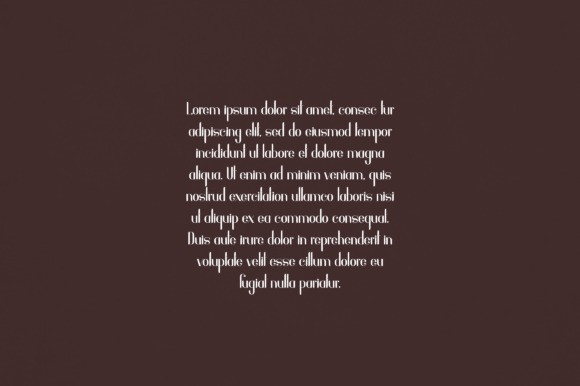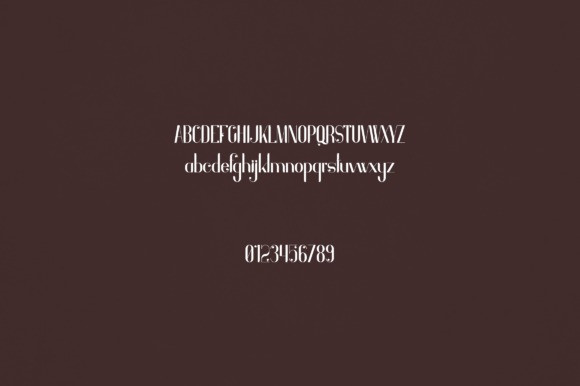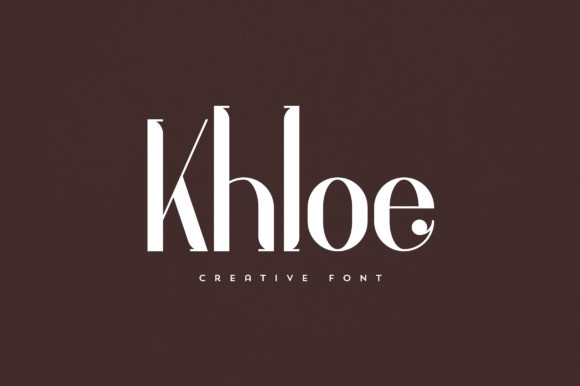
Khloe Font
Khloe Font is an elegant and versatile display font that will make your typography truly unique! It will enchant every logo, branding, headline, or plain text!